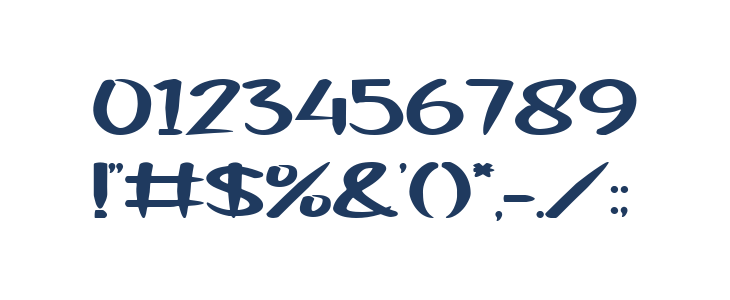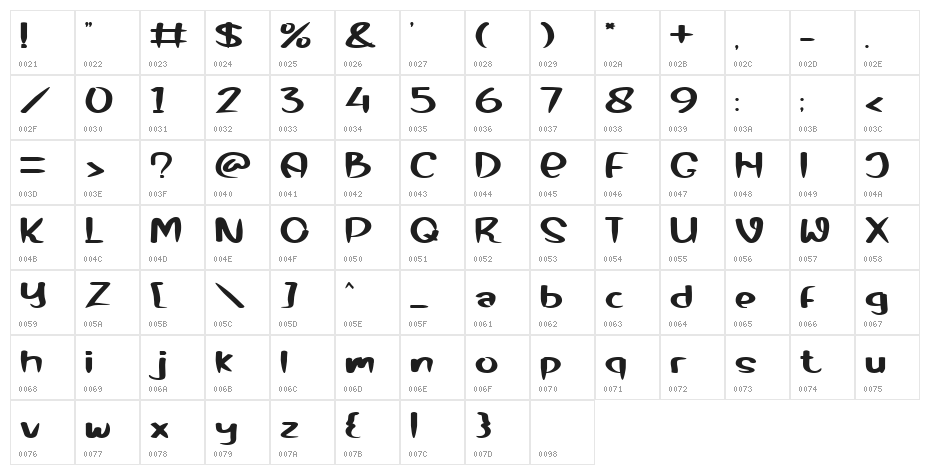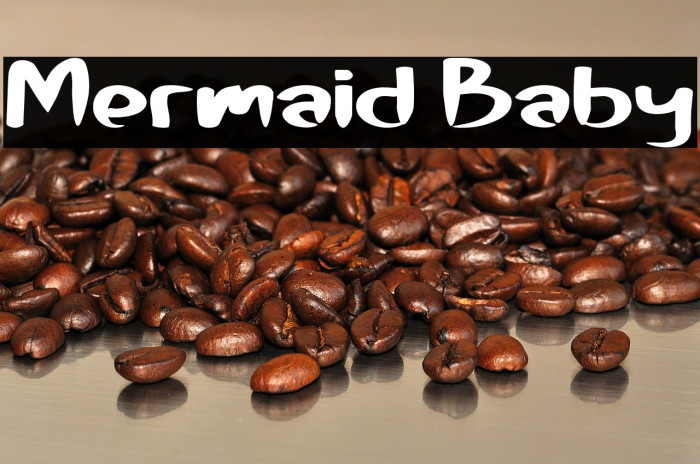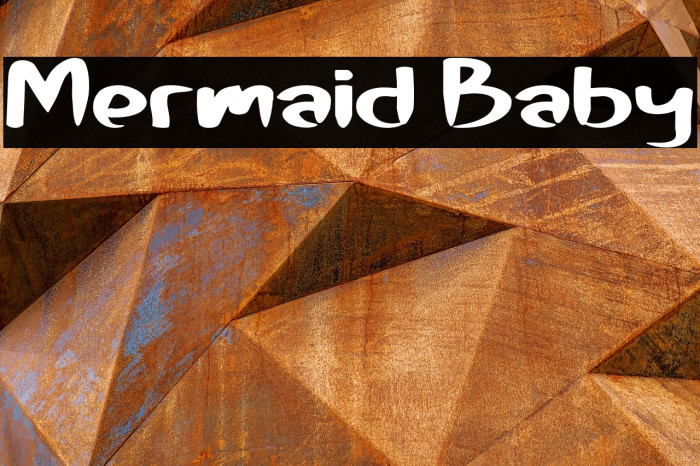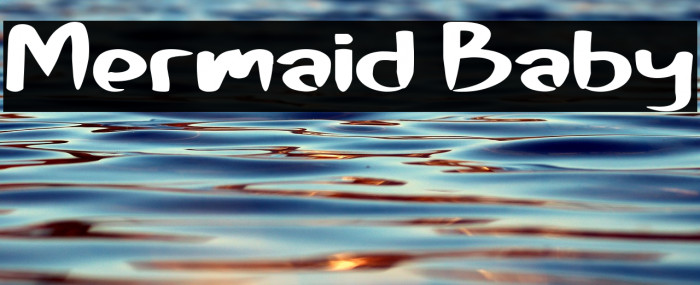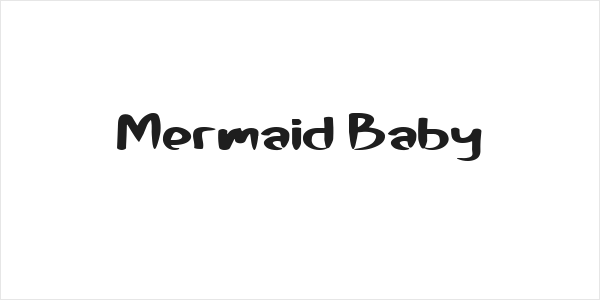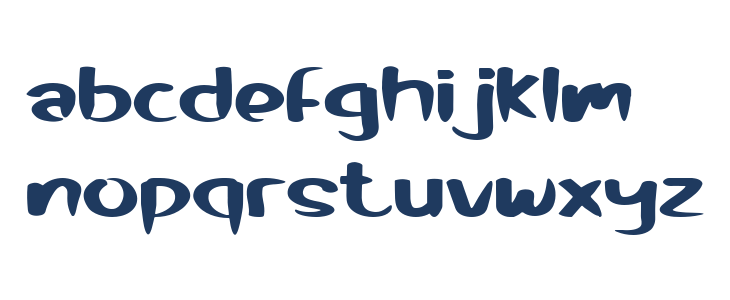
Mermaid Baby Font
Mermaid Baby Description
This playful and whimsical font features bold, rounded characters with a hand-drawn aesthetic. The strokes are thick and consistent, giving it a strong presence. Its unique style is characterized by slightly exaggerated curves and a casual, friendly appearance. The uppercase and lowercase letters maintain a cohesive look, while the numerals and special characters complement the overall design. This font's lively and informal nature makes it ideal for projects that require a touch of fun and creativity.
| Use Case | Logos, Posters, Creative projects |
| Proposed Projects | Ideal for children's book covers, playful branding, greeting cards, and creative posters. |